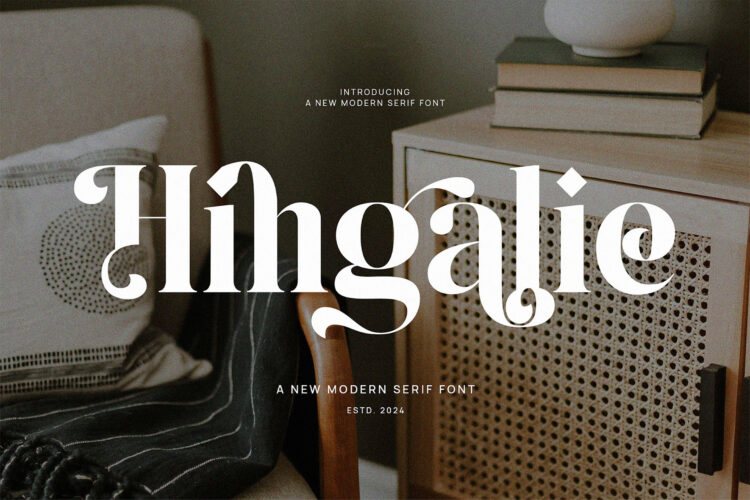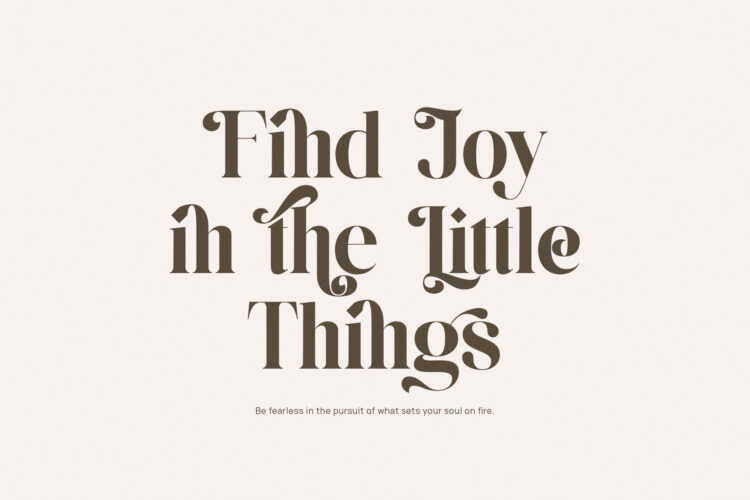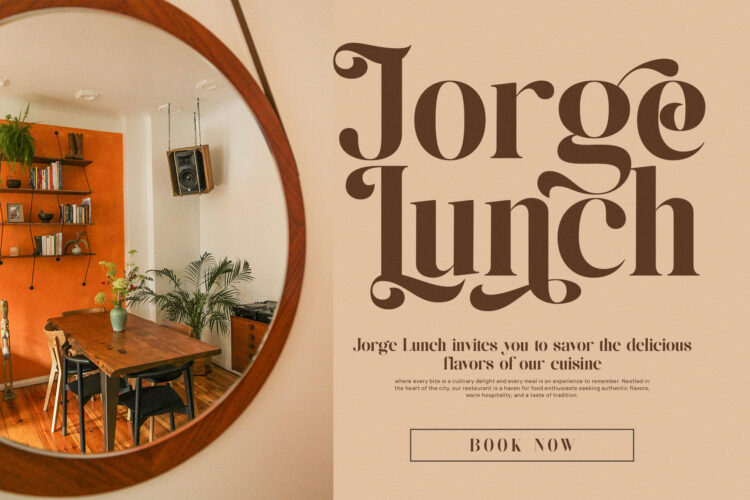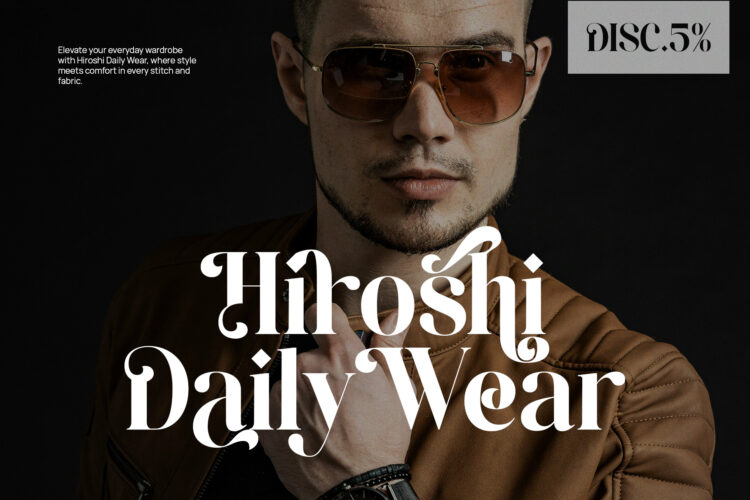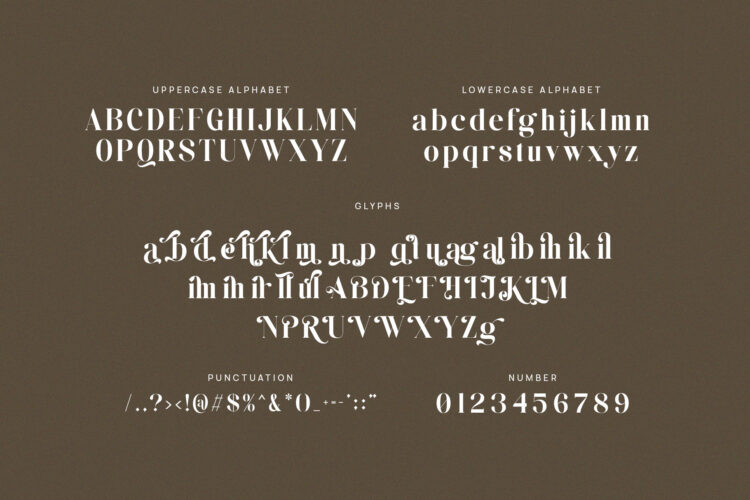
Introducing our new Hingalie, modern serif font with elegant style this is perfect for branding, logos, invitation, magazines, product packaging and more.
Hingalie – Elegant Serif Font